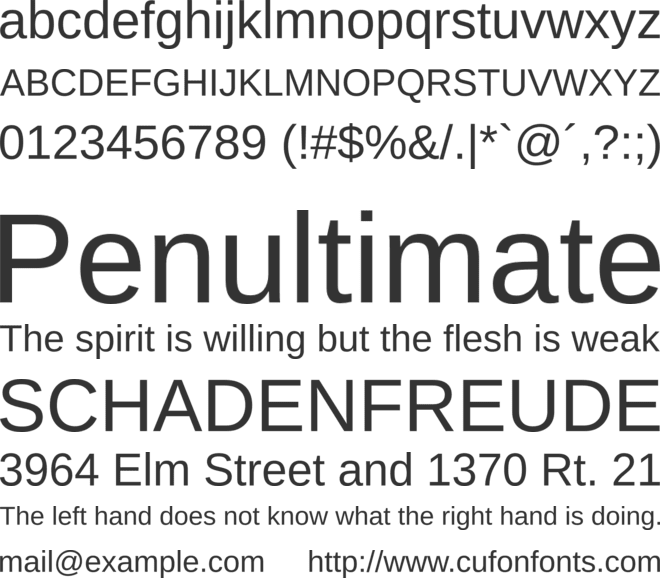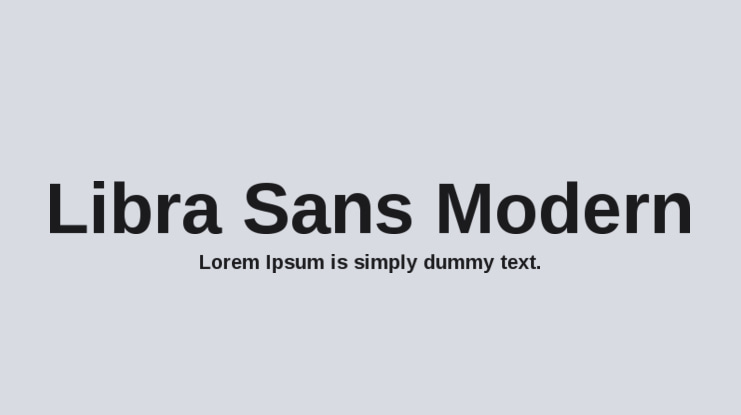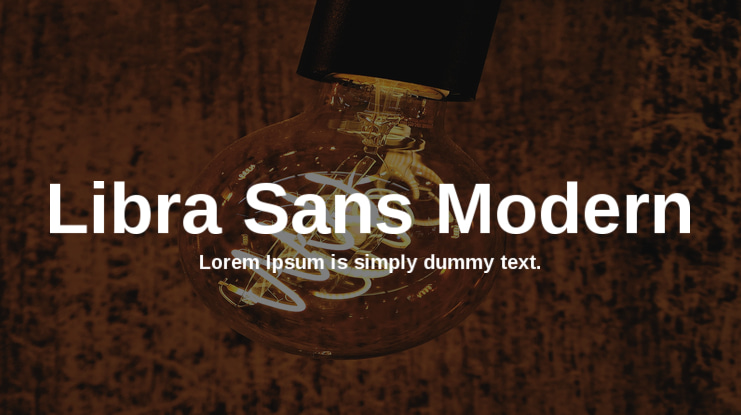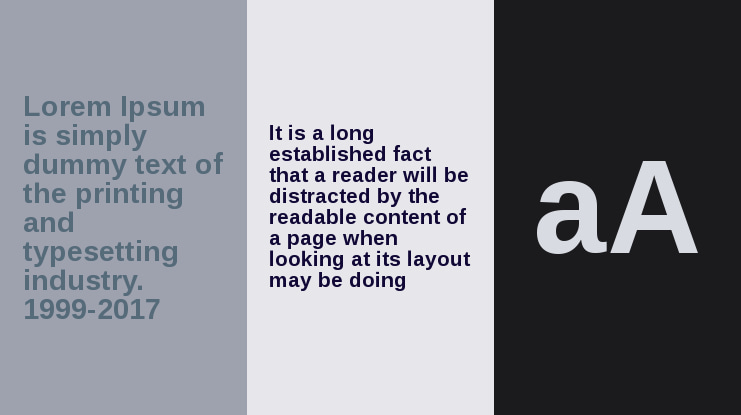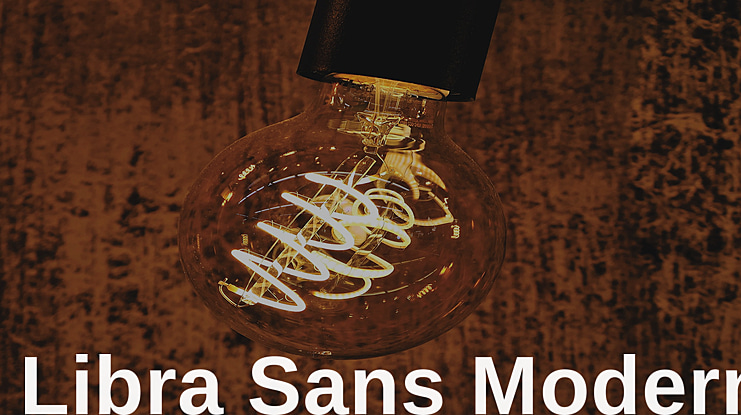
Libra Sans Modern is derivated from Libra Sans. Libra Sans Modern contains two models of cyrillic glyph. The base range of the cyrillic glyphs (uni0410:uni044F) represents the modern Bulgarian letterform model. The traditional cyrillic letterform model is included as a local feature for Russian language. This is the main difference with Libra Sans where the traditional cyrillic letterform model is in the range uni0410:uni044F and the modern Bulgarian letterform model is included as local feature for Bulgarian language.